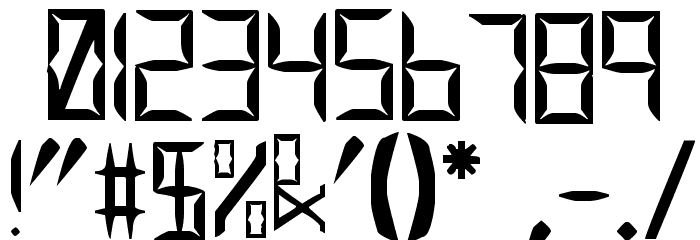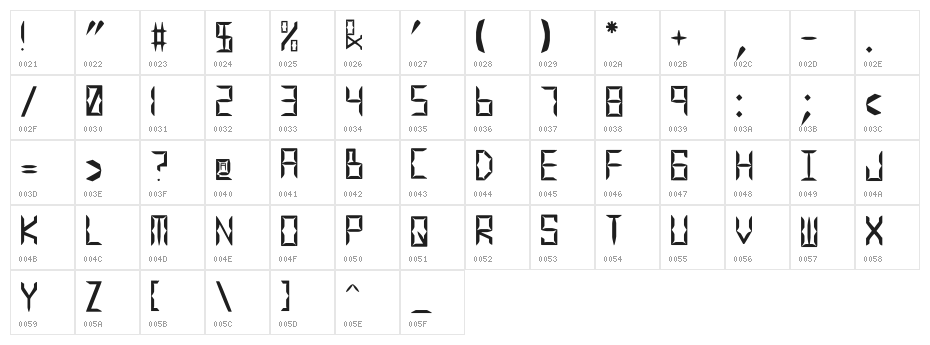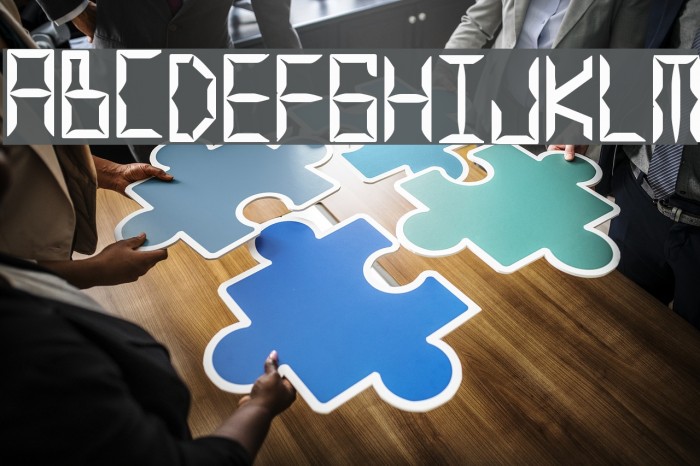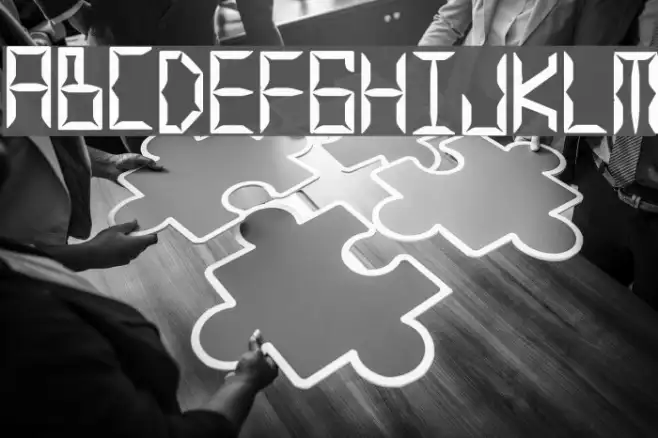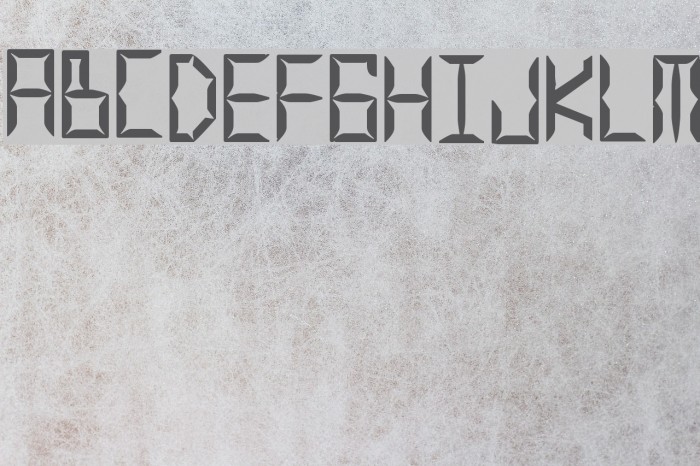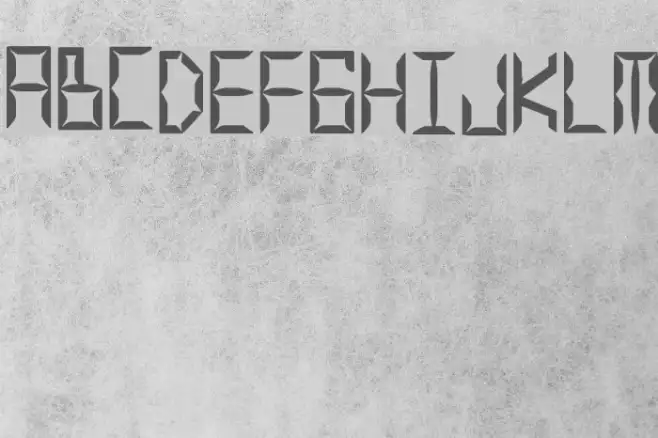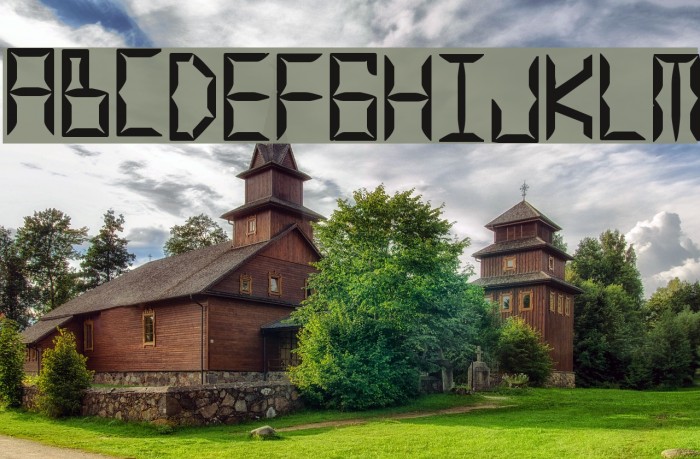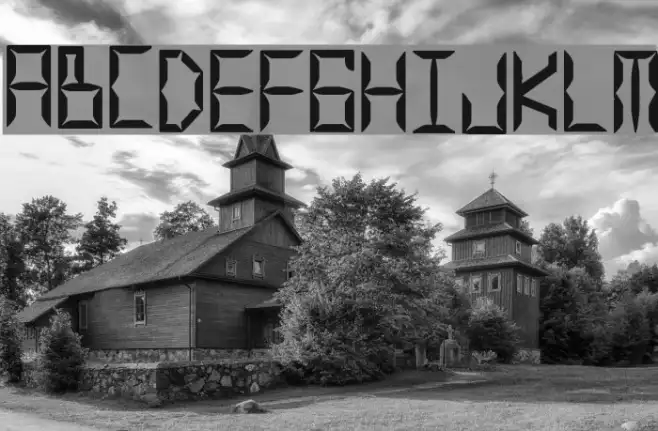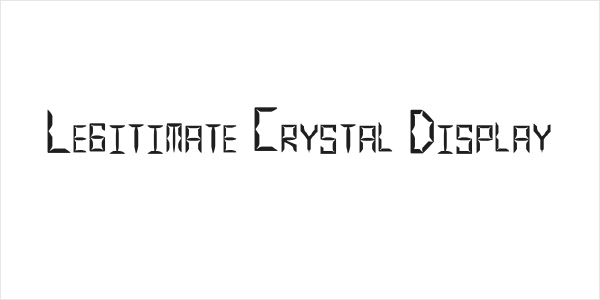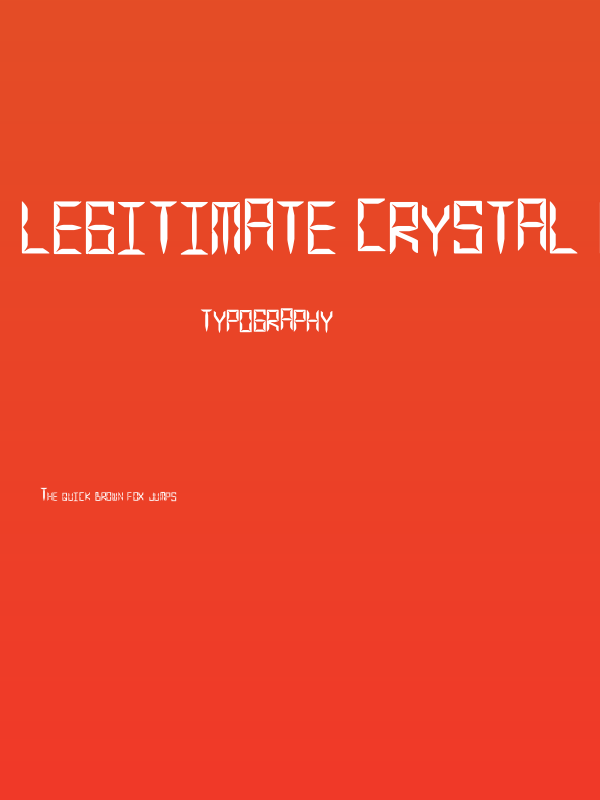
Legitimate Crystal Display Font
Legitimate Crystal Display Description
This font features a bold, geometric design with sharp, angular edges reminiscent of crystal formations. The characters are constructed with a combination of straight lines and pointed angles, creating a futuristic and edgy appearance. The uppercase and lowercase letters maintain a consistent style, with the lowercase being slightly smaller but equally bold. Numbers and special characters follow the same design principles, ensuring uniformity across all glyphs. The overall aesthetic is striking and modern, making it suitable for projects that require a strong visual impact.
| Overall Style | Futuristic, Edgy |
| Proposed Projects | Ideal for sci-fi themed designs, video game titles, posters, and branding that requires a modern and edgy look. |